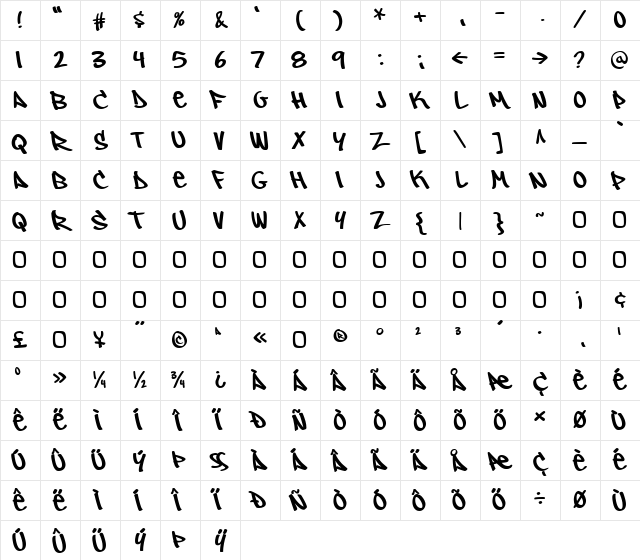
Owned Regular
Owned Family
Design Context for Owned
Owned is a composed and adaptable typeface that performs quietly and consistently across a wide range of design contexts.